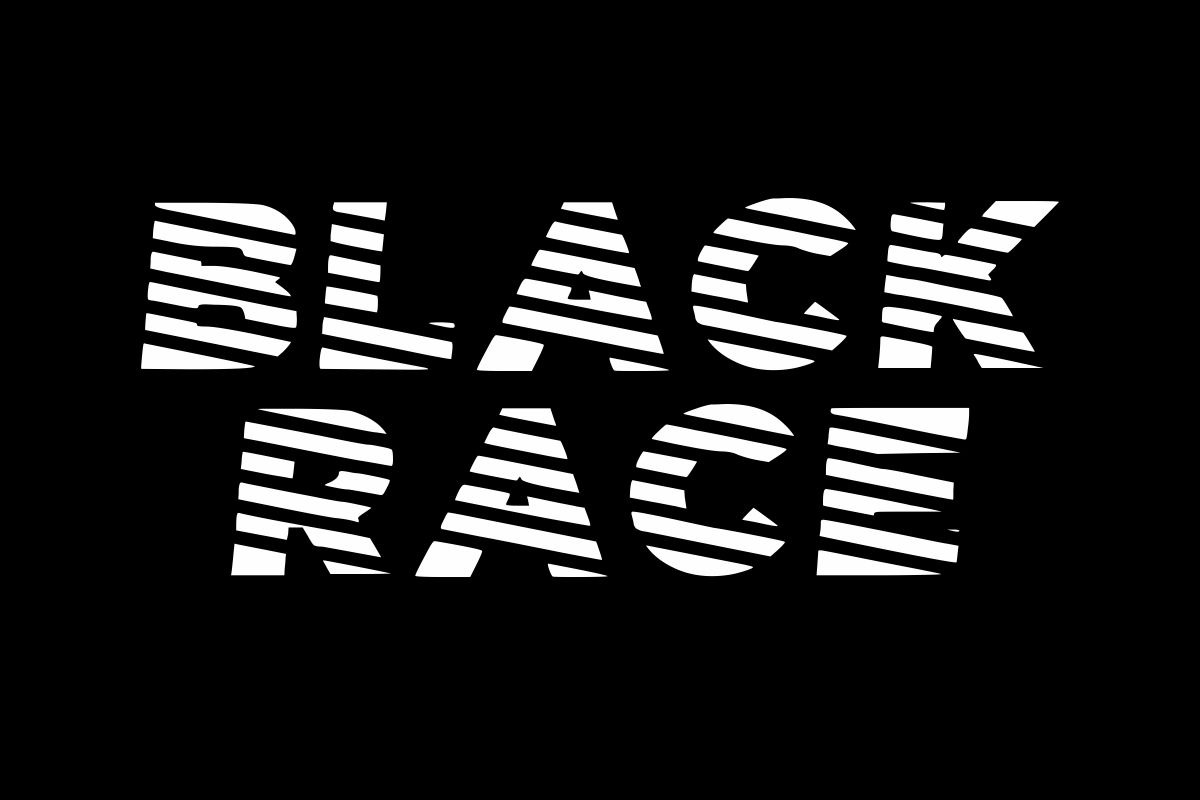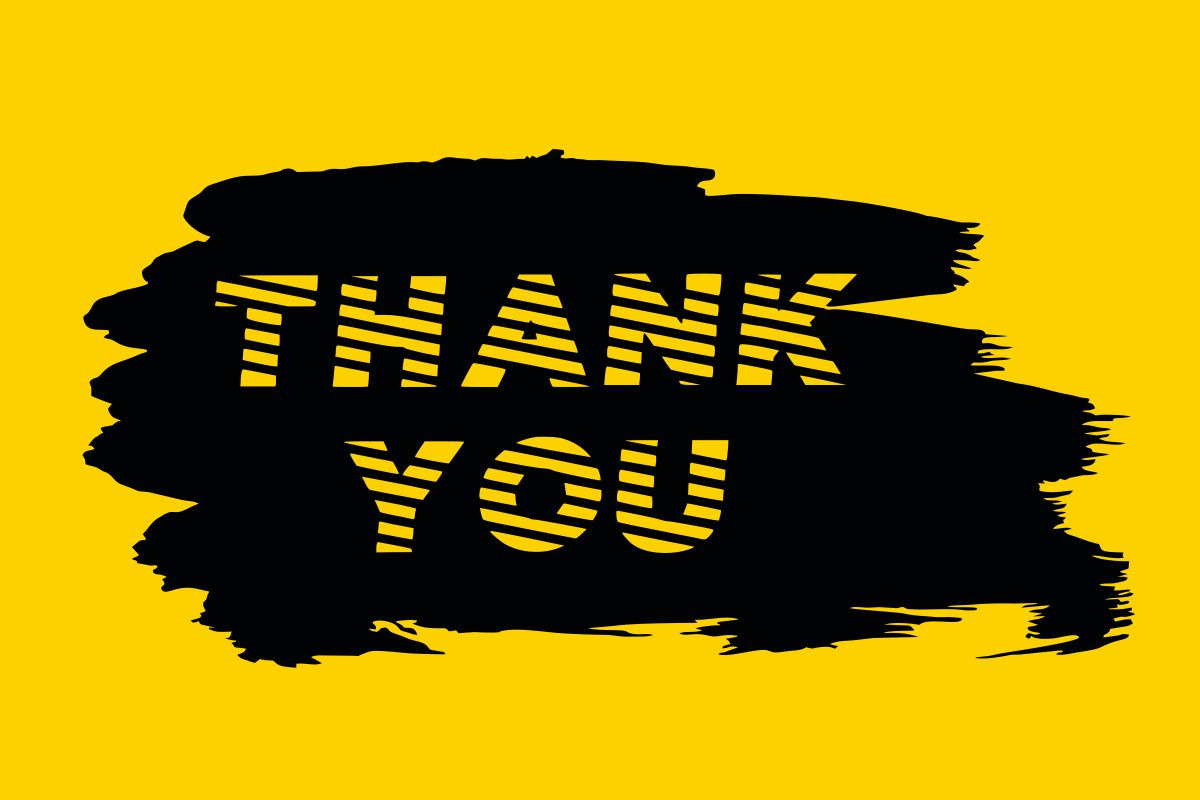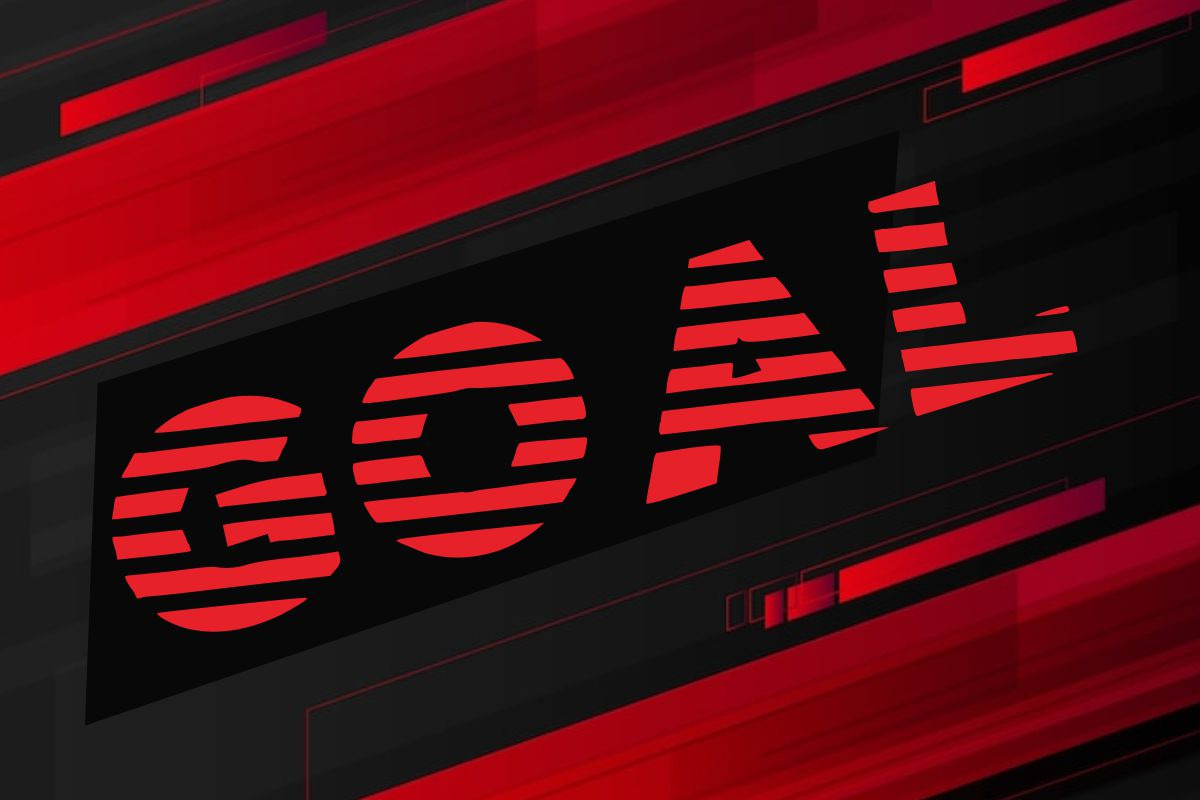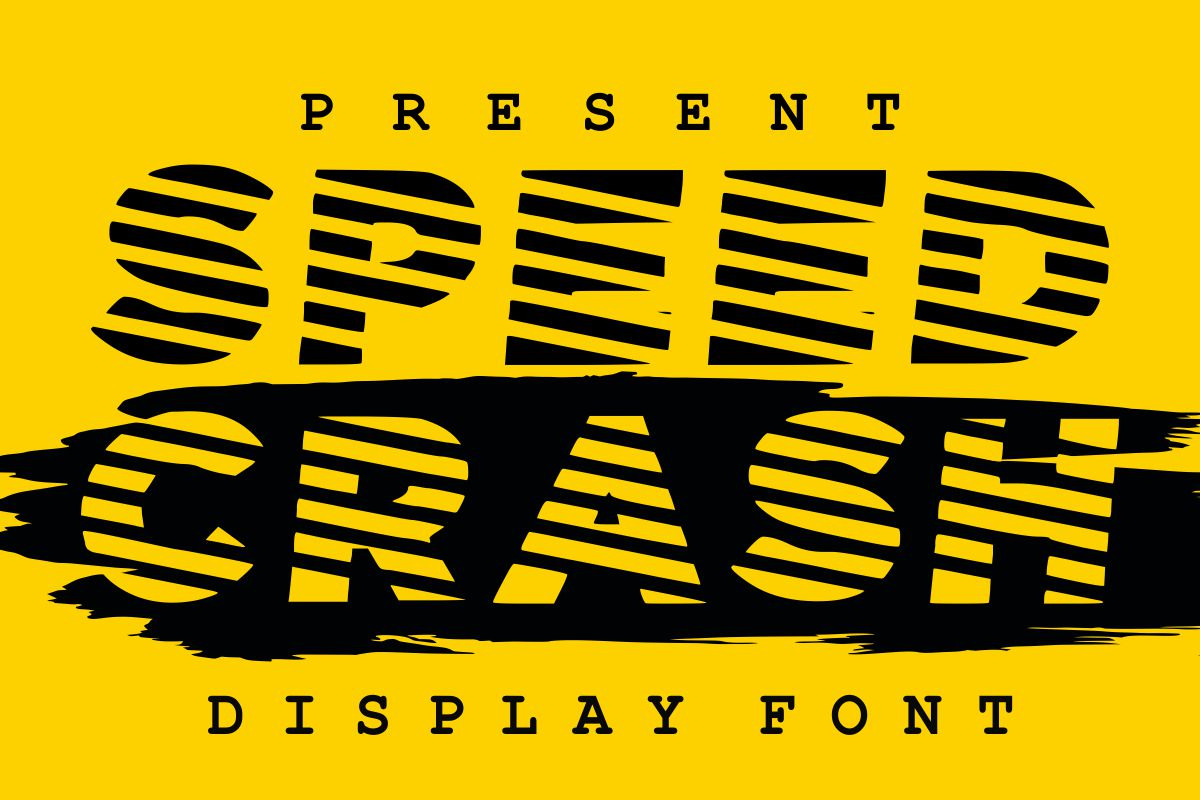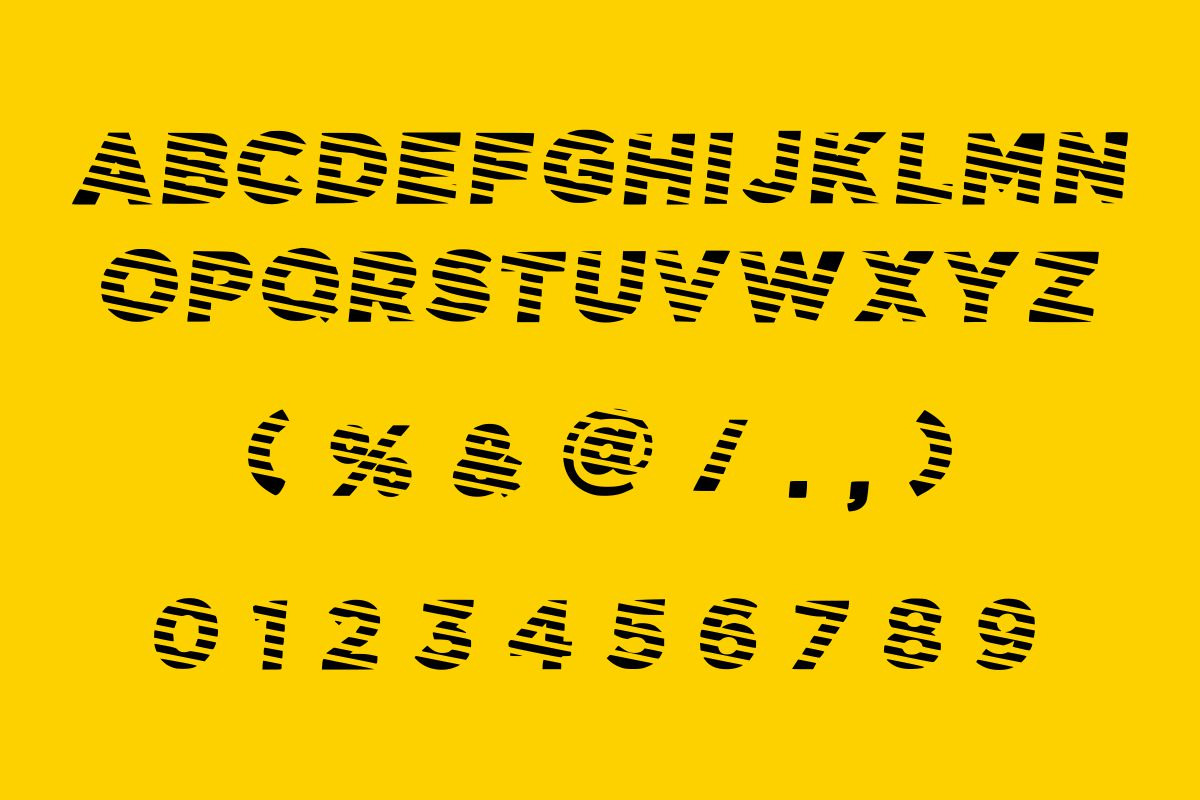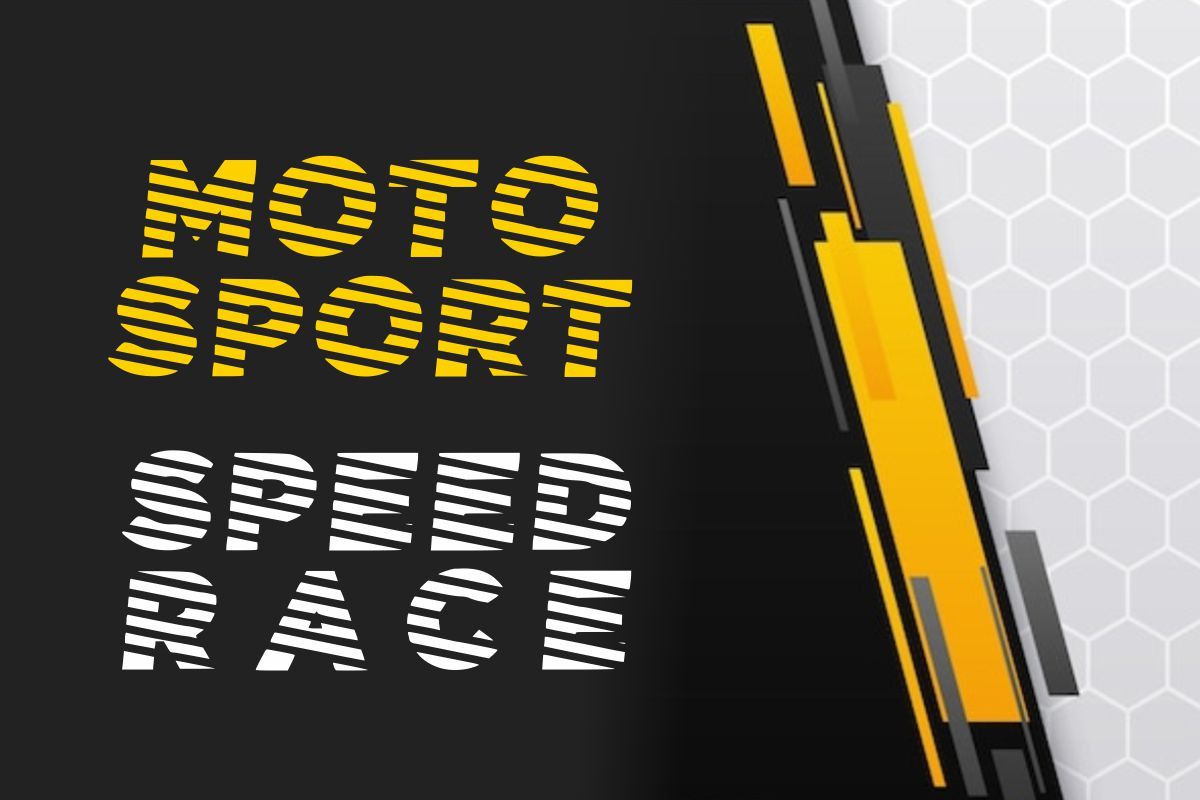
SPEED CRASH
Speed Crash is a cool and bold display font. It features a dynamic effect and a unique charm. It is perfect for headlines, whether for sporting events, automotive posters, logo or monograms designs. This font has the potential to become your favorite go-to font for each of your automotive projects.